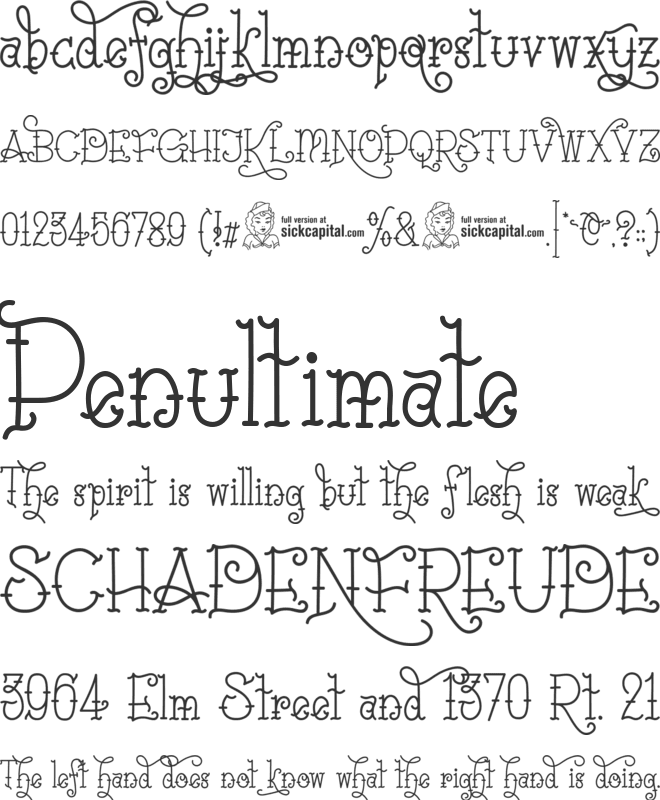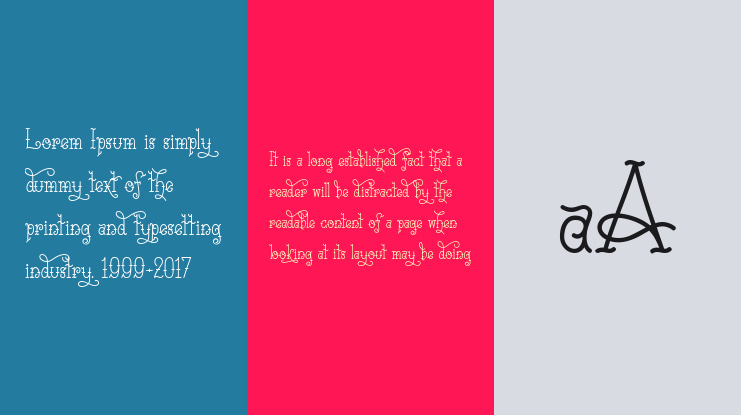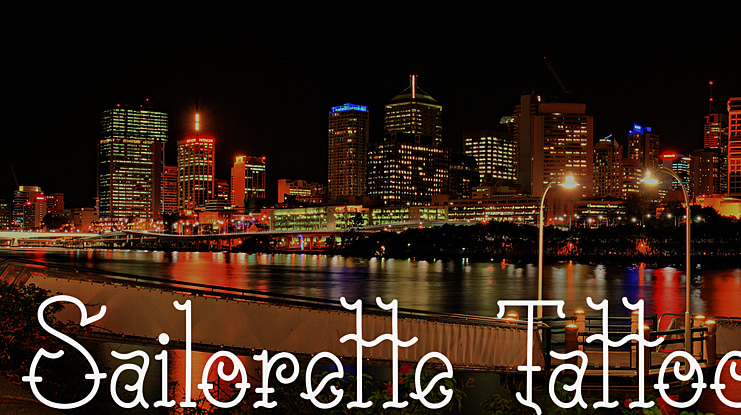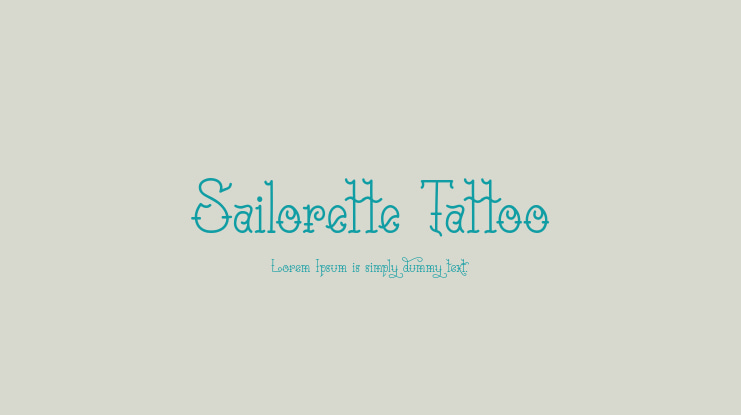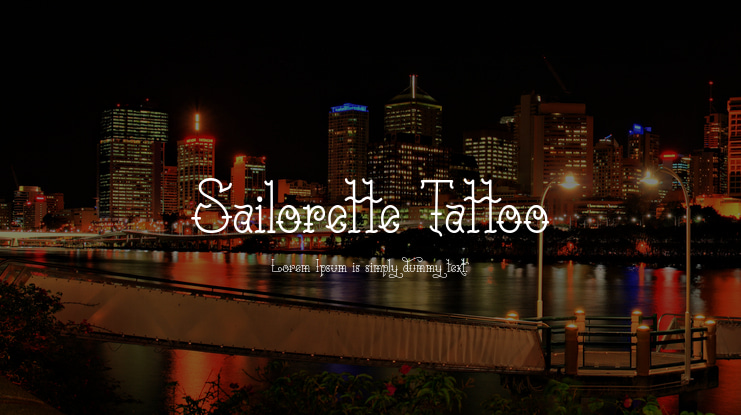
Sailorette Tattoo Font
This is a vintage tattoo font mixed with that Sailor Jerry and Ed Hardy vibe as well as my own personal aesthetic. I hope you find it useful - I wanted to publish something smoother and more original than my 'Dead Hardy' font and I hope you guys like this.